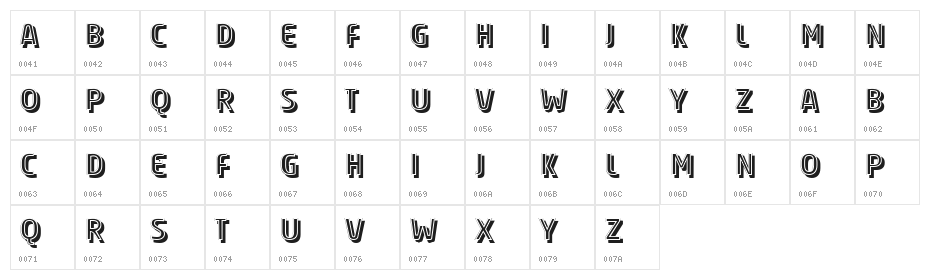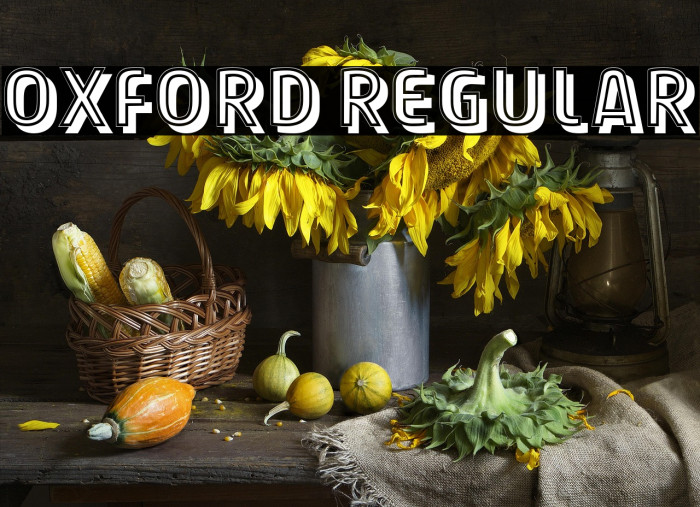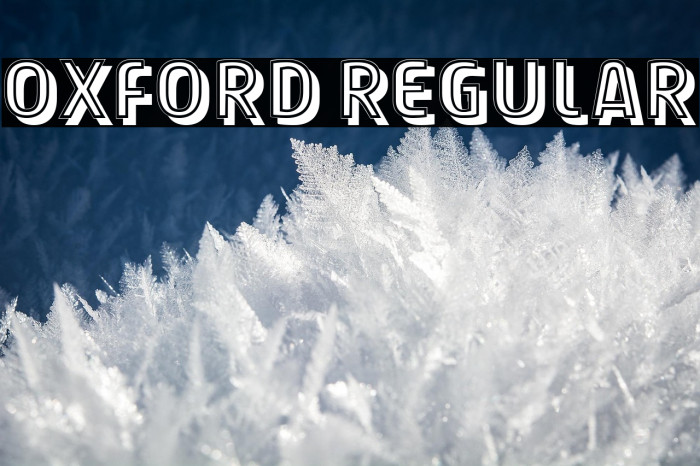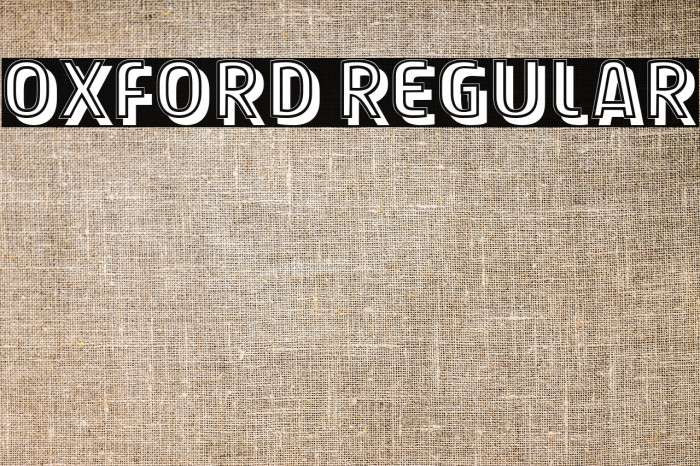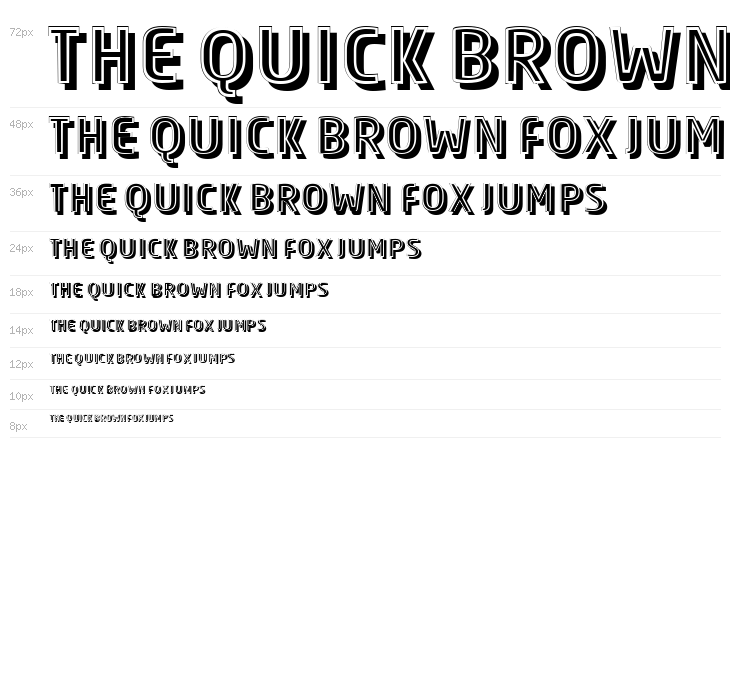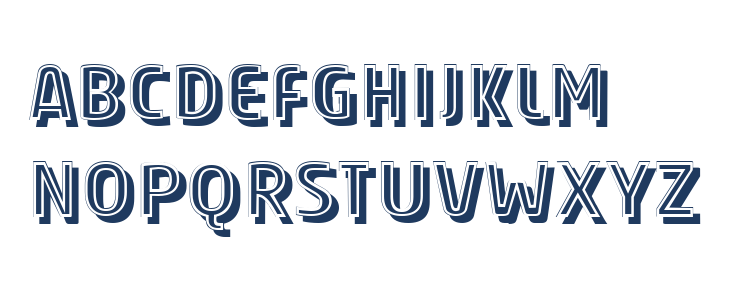
Oxford Regular Font
Oxford Regular Description
This font features a bold and striking design with a three-dimensional effect, created by the use of shadowing and outlines. The uppercase letters are prominently displayed, showcasing a geometric and structured form. The font's style is reminiscent of vintage signage or retro posters, with a modern twist that makes it suitable for contemporary designs. The characters are evenly spaced, ensuring readability while maintaining a unique visual appeal. This font is ideal for making a statement in any design project, whether it be for branding, advertising, or creative displays.